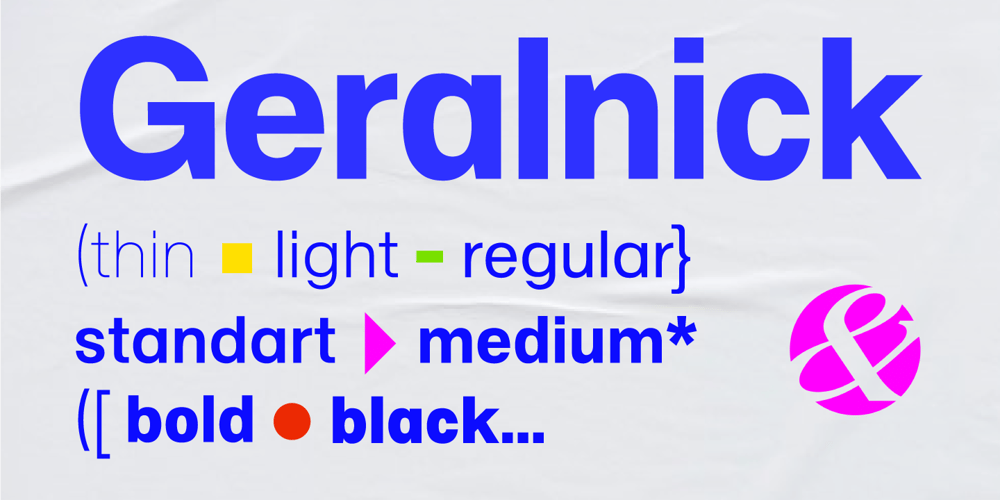
Geralnick
Geralnick font
Geralnick Font Family was designed by Andrii Shevchyk and published by Andfonts. Geralnick contains 7 styles and family package options. Geralnick, a modern sans-serif font designed for simplicity and style. With clean lines and alternate characters, it adds a touch of sophistication to any project. Whether you’re creating a logo or crafting a document, Geralnick is your versatile companion. Elevate your designs effortlessly with this sleek and user-friendly font. With a range of alternates, allowing you to customize and refine every detail.– 7 weights. — Mûłtïlañgüágê — Free updates.